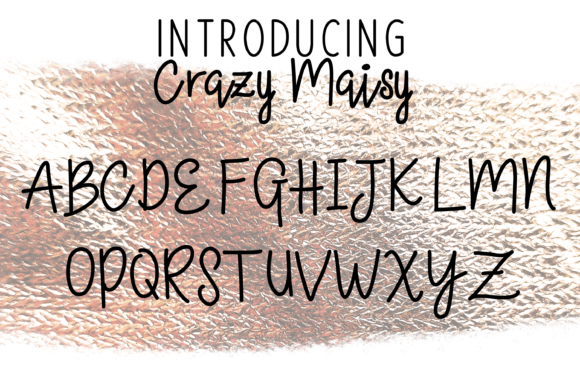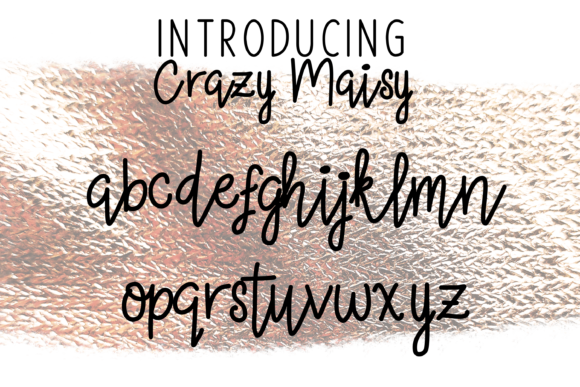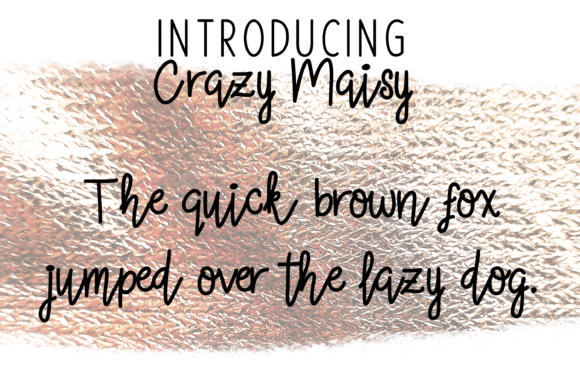
The Font that Brings Personality to Your Designs
Have you ever been stuck in a design rut, scrolling through font options, and just wanting to add a little something extra to make your project pop? We’ve all been there! It’s like searching for that perfect pair of shoes to complete your outfit – you know it’s out there, but it’s hard to find.
Enter the Crazy Maisy Font, a funky handwritten font that’s sure to add a dash of charm and personality to your designs. Whether you’re working on a blog post, social media campaign, or product packaging, this font is the perfect addition to bring your brand to life. With its quirky characters and playful vibe, the Crazy Maisy Font is a valuable asset for any designer looking to add a little whimsy to their work.
Crazy Maisy Font Key Features
- Font Family: Crazy Maisy Font
- Unique Characteristics: Whimsical, playful, and highly customizable with over 1000 glyphs and 20 OpenType features
Crazy Maisy Font Review
I must say, I was quite intrigued by the Crazy Maisy Font. At first glance, it’s a playful and whimsical font that can add a lot of personality to your designs. ✨ The font’s unique characteristics, such as its irregular shapes and bold lines, can make it stand out in a crowd.
One of the things that works well about the Crazy Maisy Font is its versatility. ✨ It can be used in a variety of contexts, from children’s books and party invitations to marketing materials and social media graphics. The font’s energetic and carefree vibe can add a touch of fun and playfulness to any design.
- ⚠️ The font may be too playful for formal or professional designs, where a more conservative or traditional font may be more suitable.
- ⚠️ The font’s irregular shapes and bold lines can make it difficult to read at small sizes or in certain contexts, such as on a mobile device.
Overall, I think the Crazy Maisy Font is a great choice for designers who want to add some personality and whimsy to their designs. While it may have some limitations, it’s a versatile and fun font that can be used in a variety of contexts. With a little creativity and experimentation, designers can unlock the full potential of this unique and playful font.
To get the most out of Crazy Maisy Font, use it for:
- Bright and playful designs.
- Children’s books and educational materials.
- Summer-themed projects and party invitations.
- Combine with bold and colorful graphics for a fun and energetic look.
Creative Projects Using Crazy Maisy Font
Create a unique and playful wedding invitation with the Crazy Maisy Font. This font is perfect for a whimsical and romantic theme.
How to use Crazy Maisy Font: Use the font for the wedding invitation’s main text, such as the couple’s names, wedding date, and location. You can also use it for the RSVP details and any other important information.